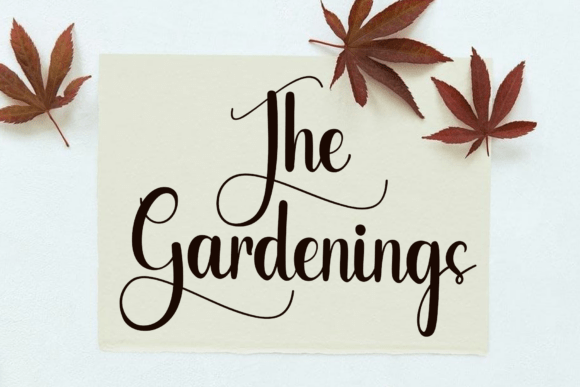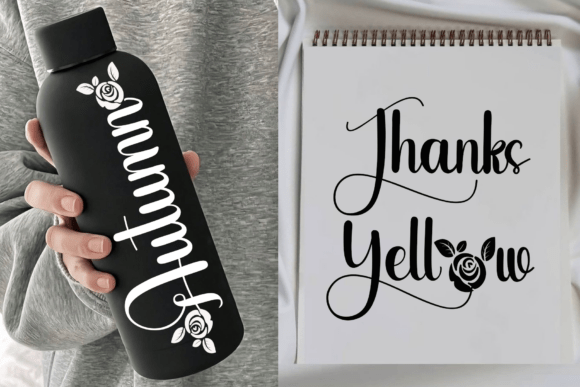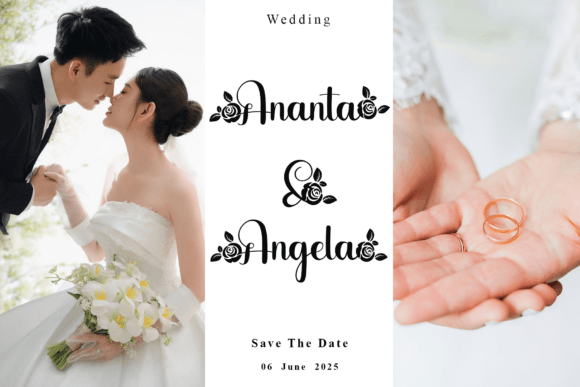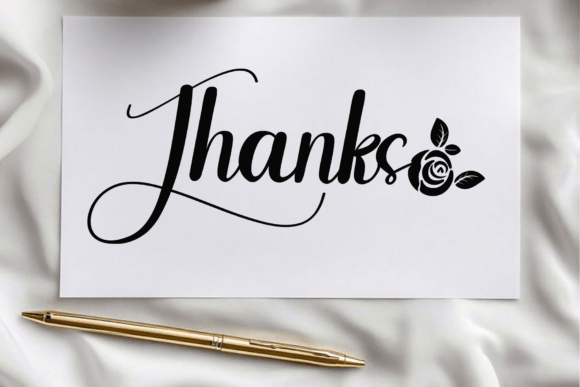
The Perfect Script: Unveiling Angeline Font
As a designer, there’s nothing quite like the thrill of finding that perfect font to bring your vision to life. It’s the moment when the words on the page start to dance, and your client’s brand begins to shine. For me, that moment came when I stumbled upon the Angeline Font – a beautifully flowing script that radiates charm and sophistication.
Angeline Font is more than just a pretty face; it’s a versatile tool designed to elevate your designs and leave a lasting impression. Whether you’re crafting wedding invitations, personal branding, or elegant packaging, this font is sure to make your work stand out. Its smooth curves and handwritten feel evoke a sense of romance and elegance, making it a valuable addition to any designer’s toolkit.
With Angeline Font, you’ll be able to add a touch of sophistication to even the most mundane designs, making it a must-have for any serious designer looking to take their work to the next level.
Angeline Font Key Features
• Font Family: Angeline
• Unique Characteristics: Angeline features elegant and refined script lettering with subtle flair and fluid connections, making it ideal for invitations, wedding stationery, and other special occasion designs
Designer Review: Angeline Font
As a designer, I had the chance to work with the Angeline font and I must say, it’s a unique blend of elegance and sophistication. ✨ The font’s script-style letters and rounded edges give it a feminine touch that’s perfect for wedding invitations, fashion brands, or any project that requires a touch of luxury.
The font’s versatility is another major plus. ✨ It comes in various weights and styles, making it suitable for both digital and print projects. The font’s legibility is also top-notch, making it easy to read even at smaller font sizes.
• ⚠️ Limited font pairings: The Angeline font is quite ornate, which can make it challenging to pair with other fonts. Be cautious when combining it with other fonts to avoid visual clutter.
• ⚠️ Not ideal for body text: Due to its ornate nature, the Angeline font is best suited for headlines and titles. Using it for body text can make the content hard to read.
Overall, the Angeline font is a beautiful addition to any designer’s toolkit. While it may have some limitations, its unique style and versatility make it a great choice for the right projects. With careful selection and pairing, the Angeline font can elevate your designs to new heights.
Use Angeline Font in combination with other elegant fonts to create a sophisticated design. Experiment with different font sizes and styles to add depth and visual interest to your design. Avoid using Angeline Font for casual or informal designs, as it is best suited for high-end and professional applications.
Angeline Font is commonly used for:
• Wedding invitations and stationery
• Business cards and branding materials
• Magazine covers and editorial designs
• Presentations and reports
• Advertising and marketing materials